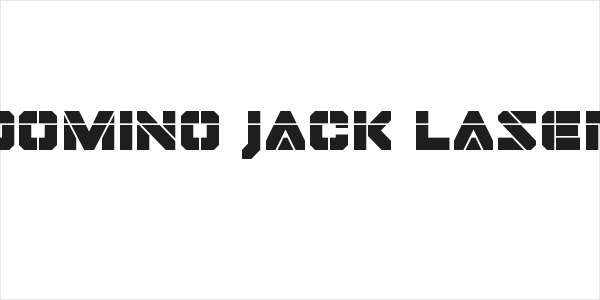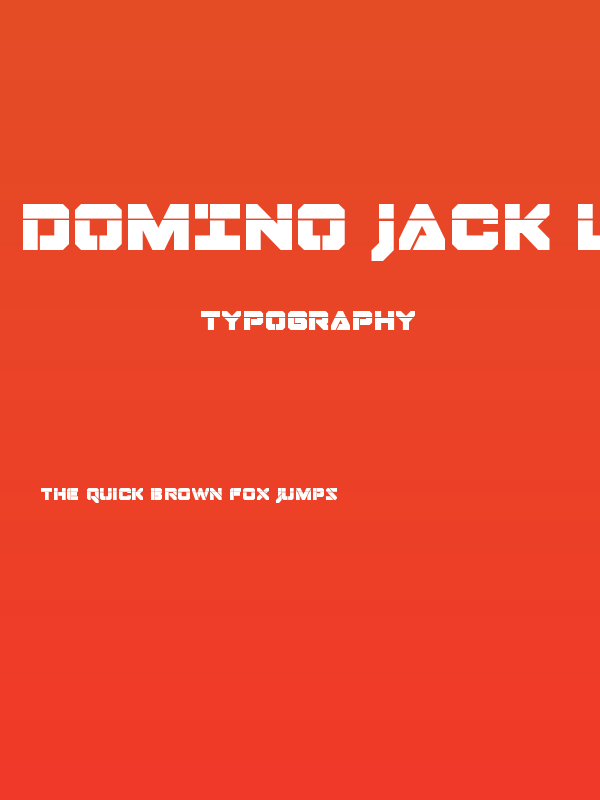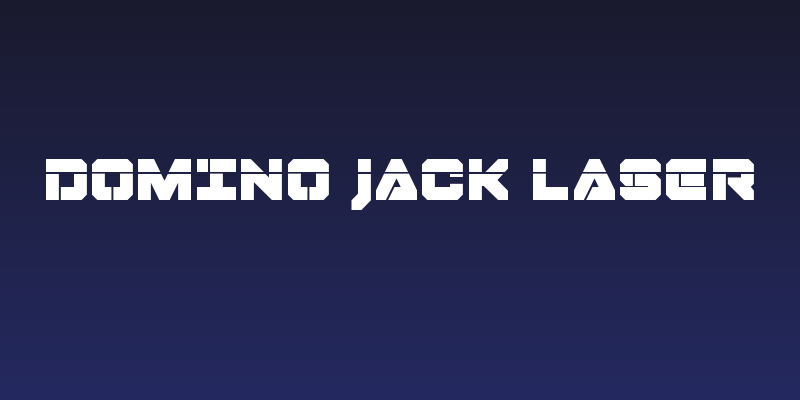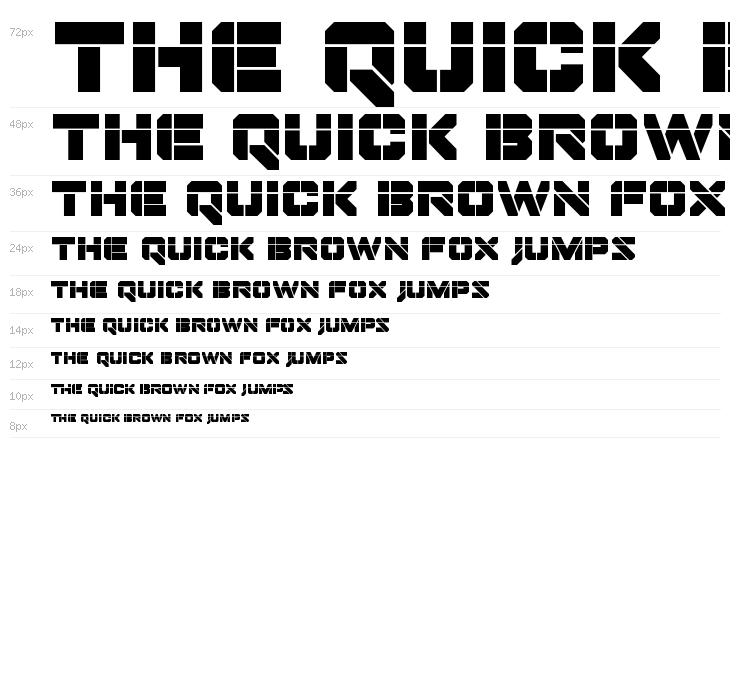
Domino Jack Laser Font
Domino Jack Laser Description
This font features a bold, geometric style with a futuristic and industrial feel. The characters are constructed with sharp angles and straight lines, creating a sense of precision and modernity. The design incorporates a stencil-like appearance, with breaks in the strokes that add to its mechanical aesthetic. Each letter and number is distinct, with a uniform thickness that contributes to its strong visual impact. The special characters maintain the same angular and segmented style, ensuring consistency across the entire typeface.
Proposed ProjectsIdeal for technology branding, sci-fi movie posters, video game titles, and industrial-themed designs.